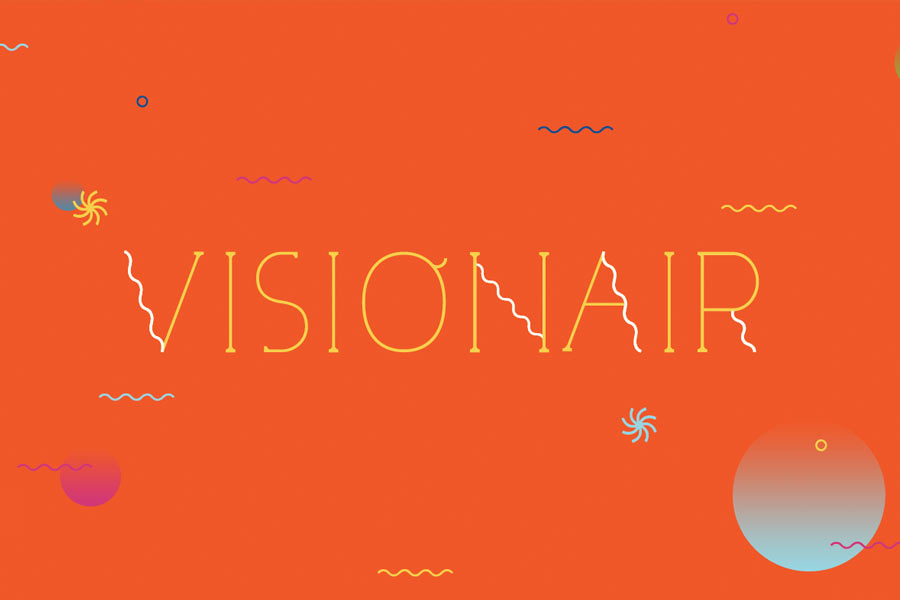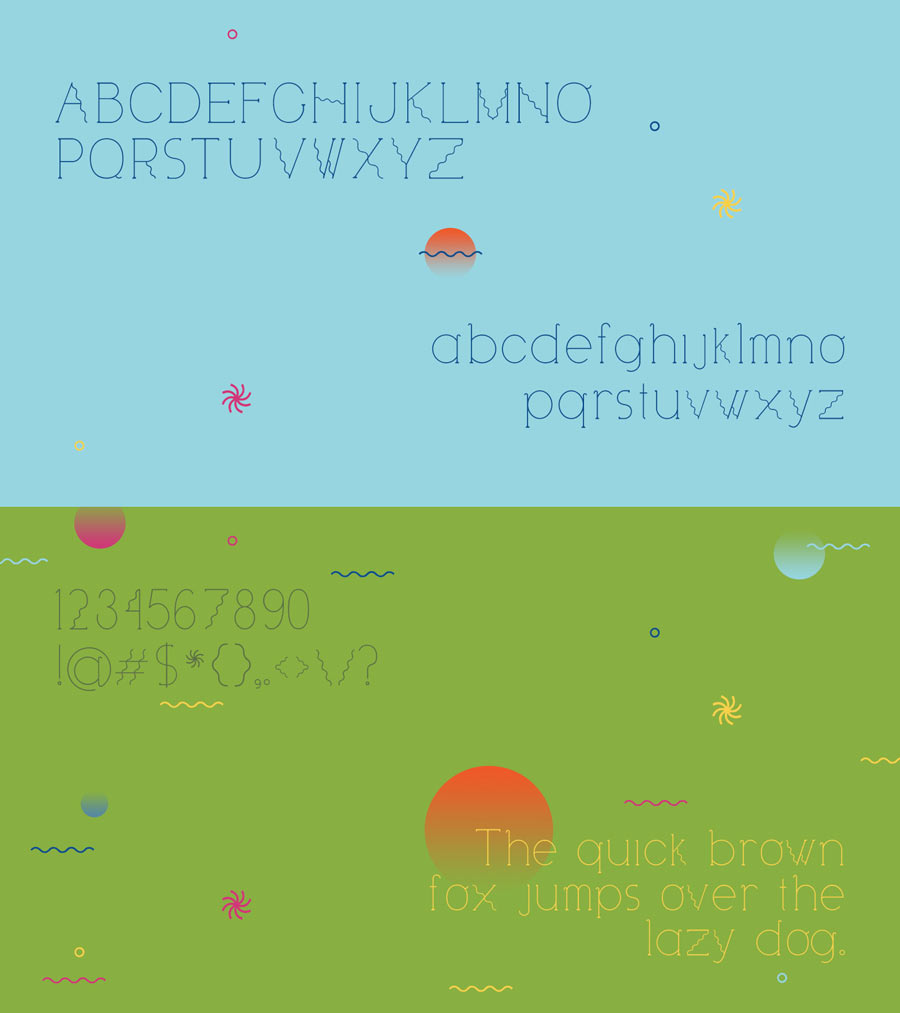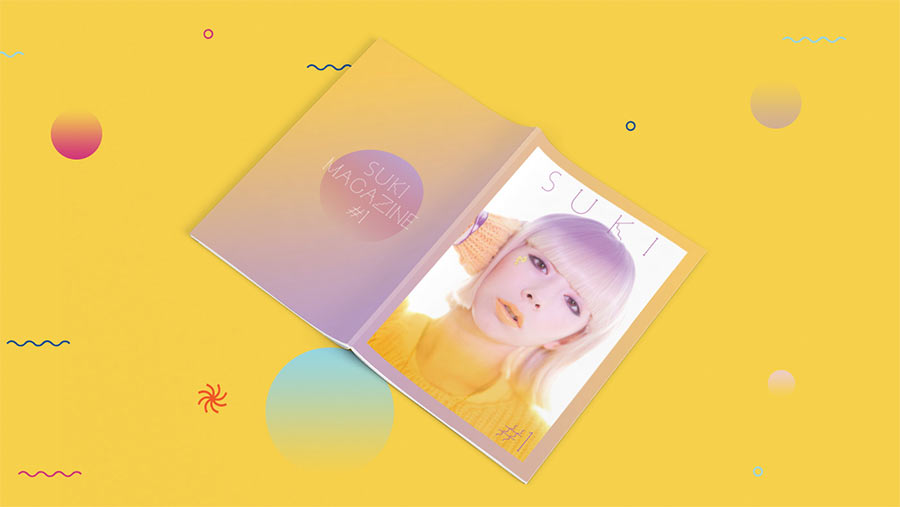
Visionair is a fun and cool font inspired by the Japanese simplicity and fun typography. Font strokes are light, with a hint of serif feature and the best part is the use of wavy lines in some letters to boost up the pop and fun in its type design.
This font is perfect for covers and posters for fun, colourful and pop-ish designs.